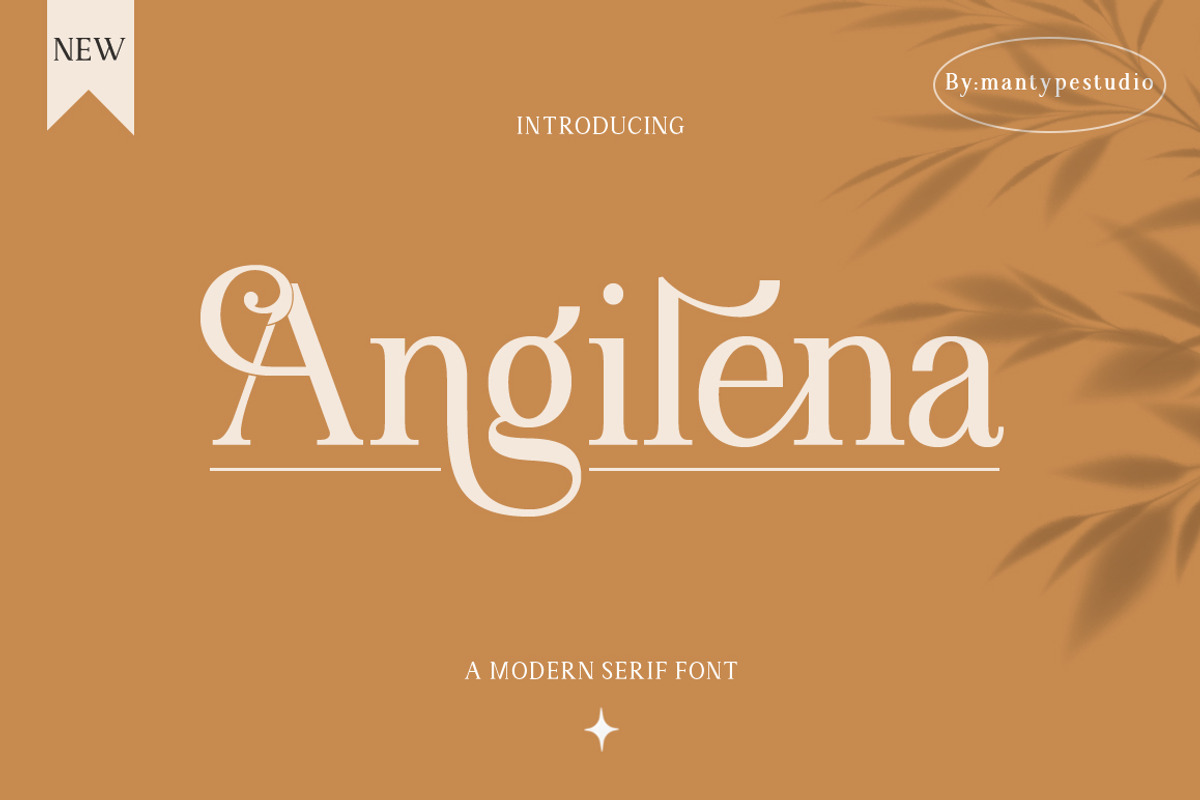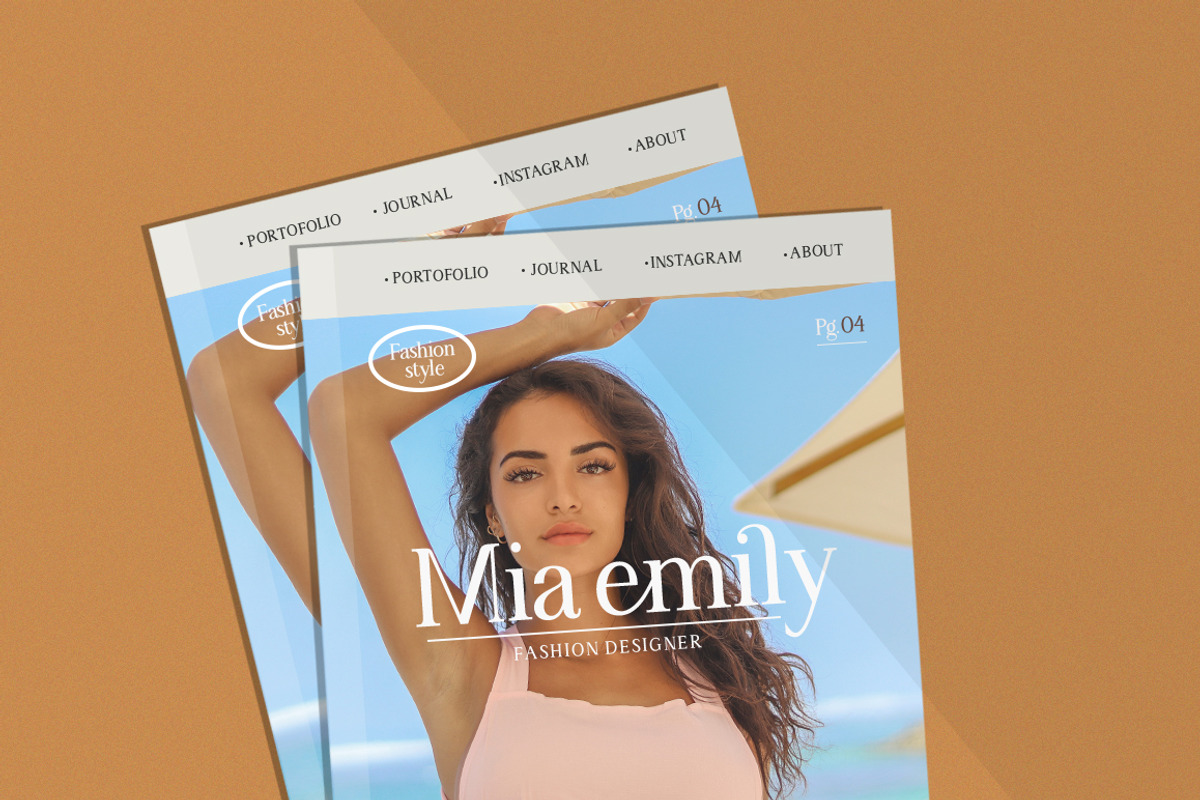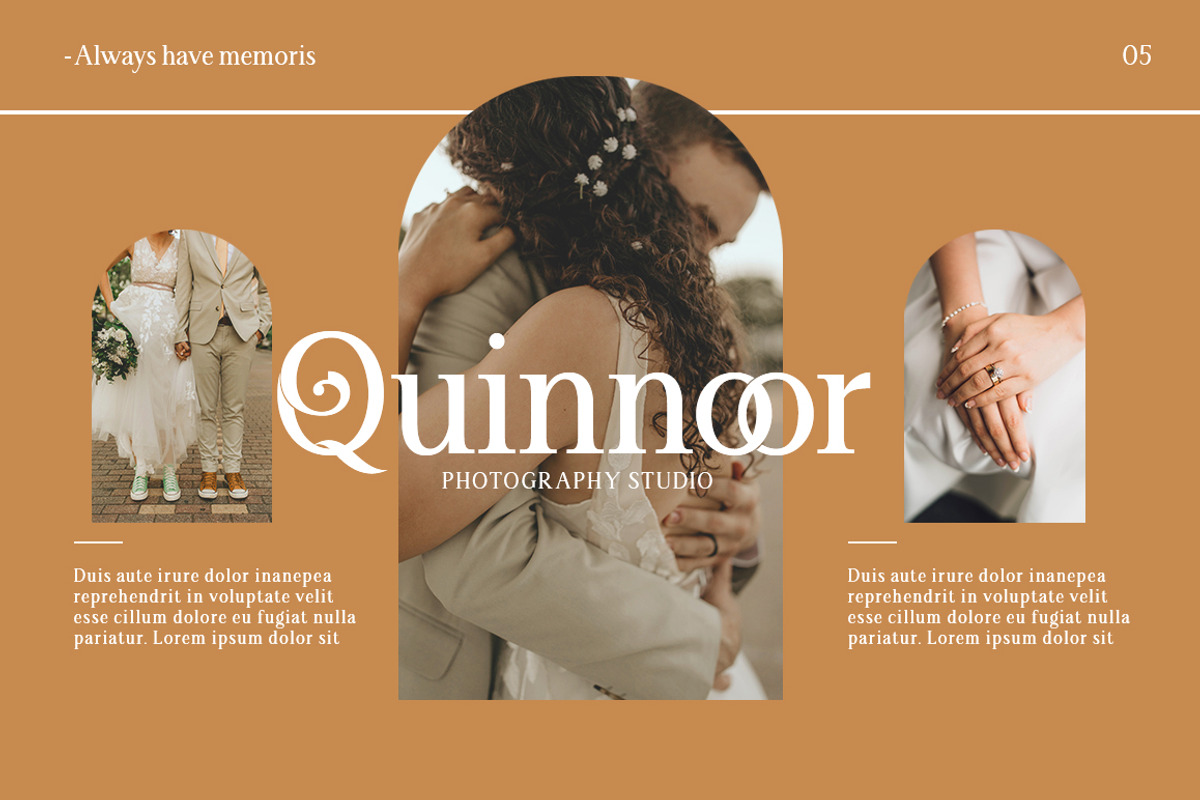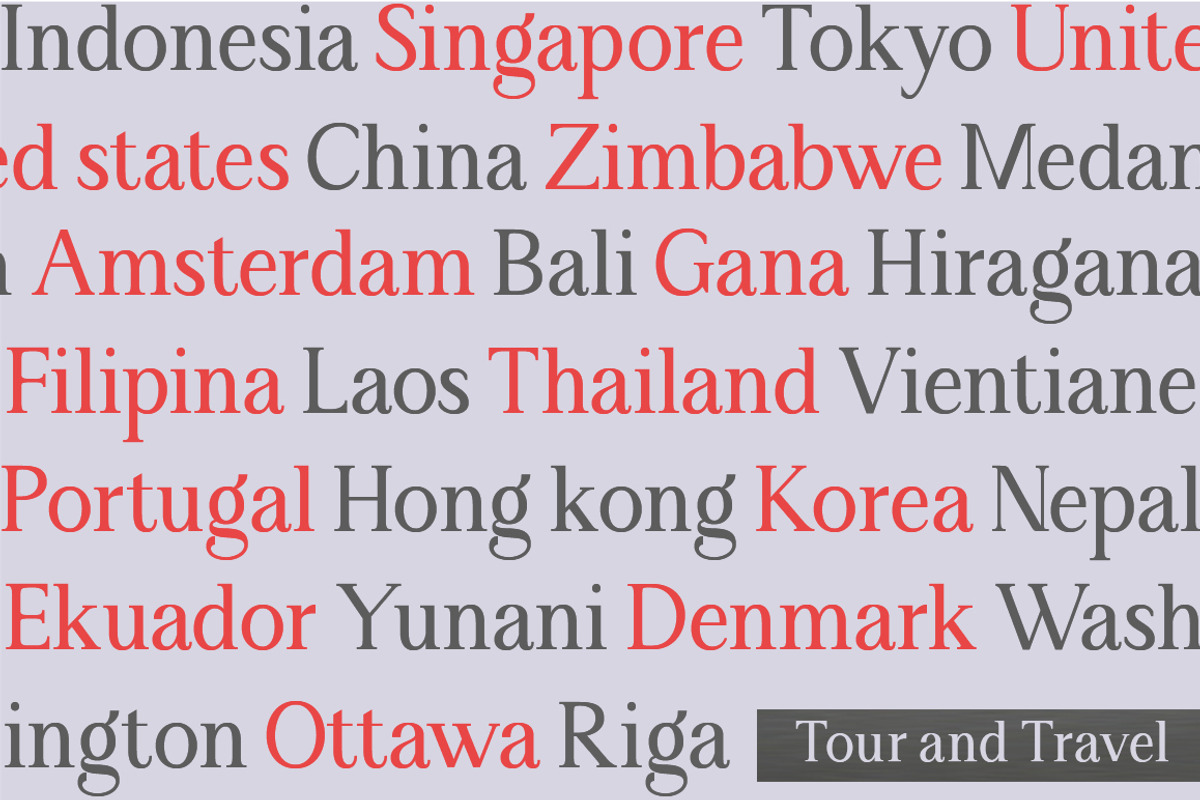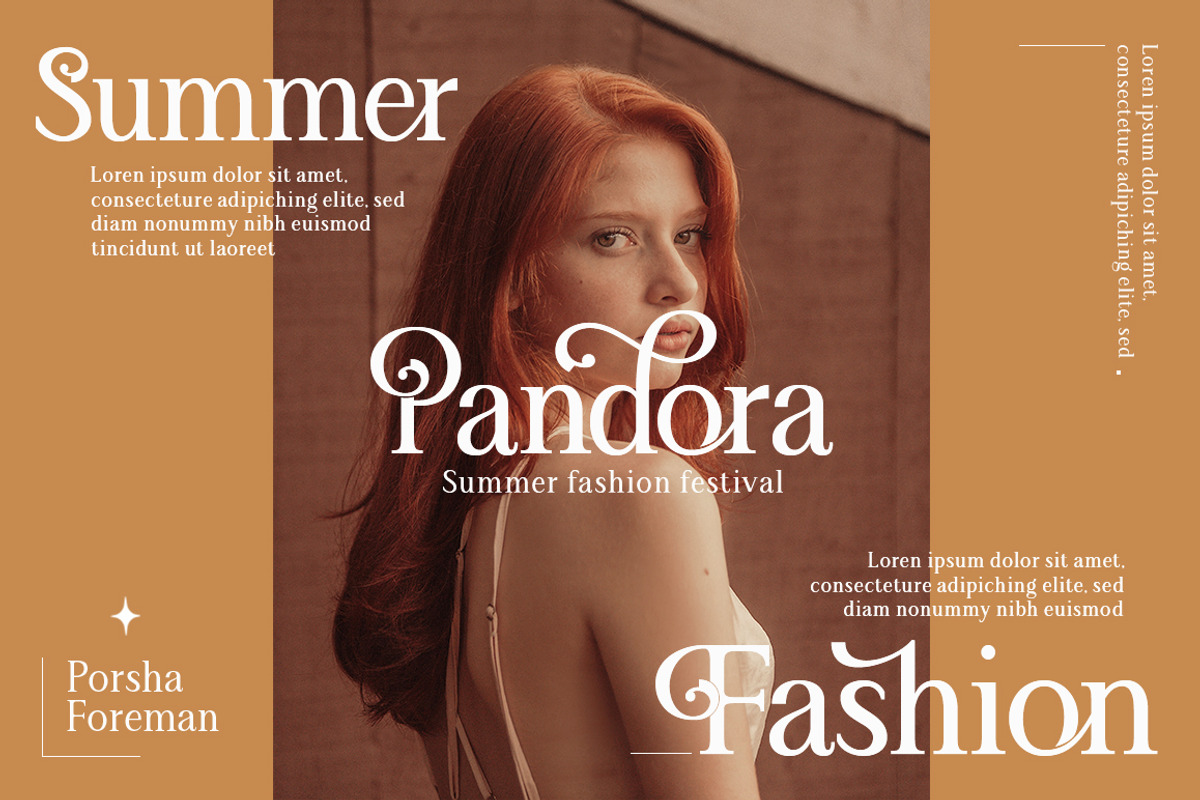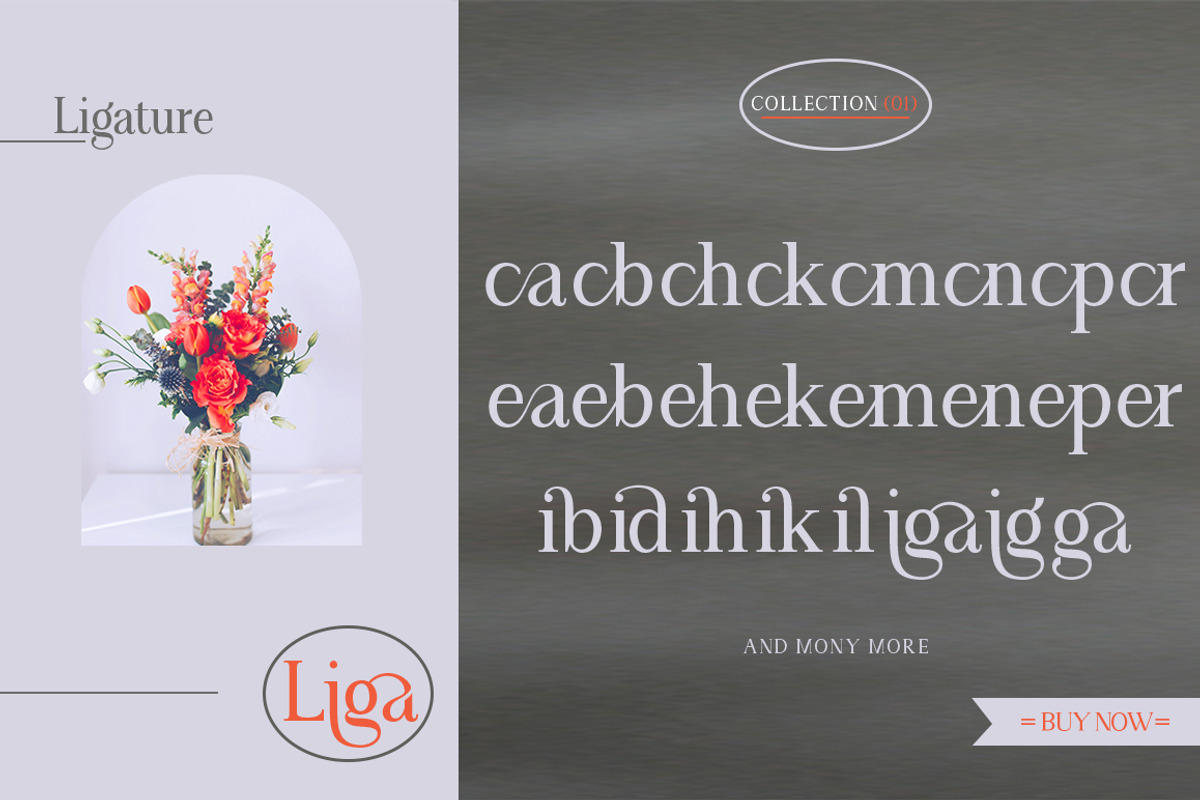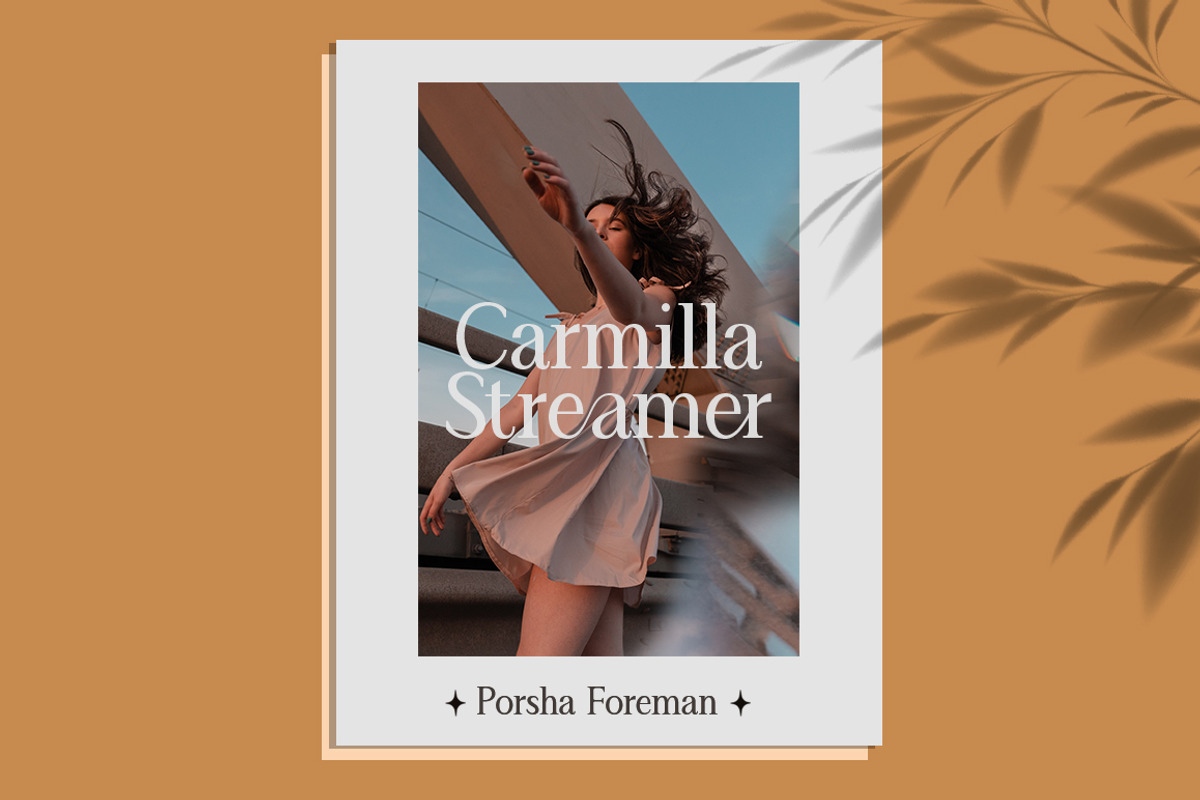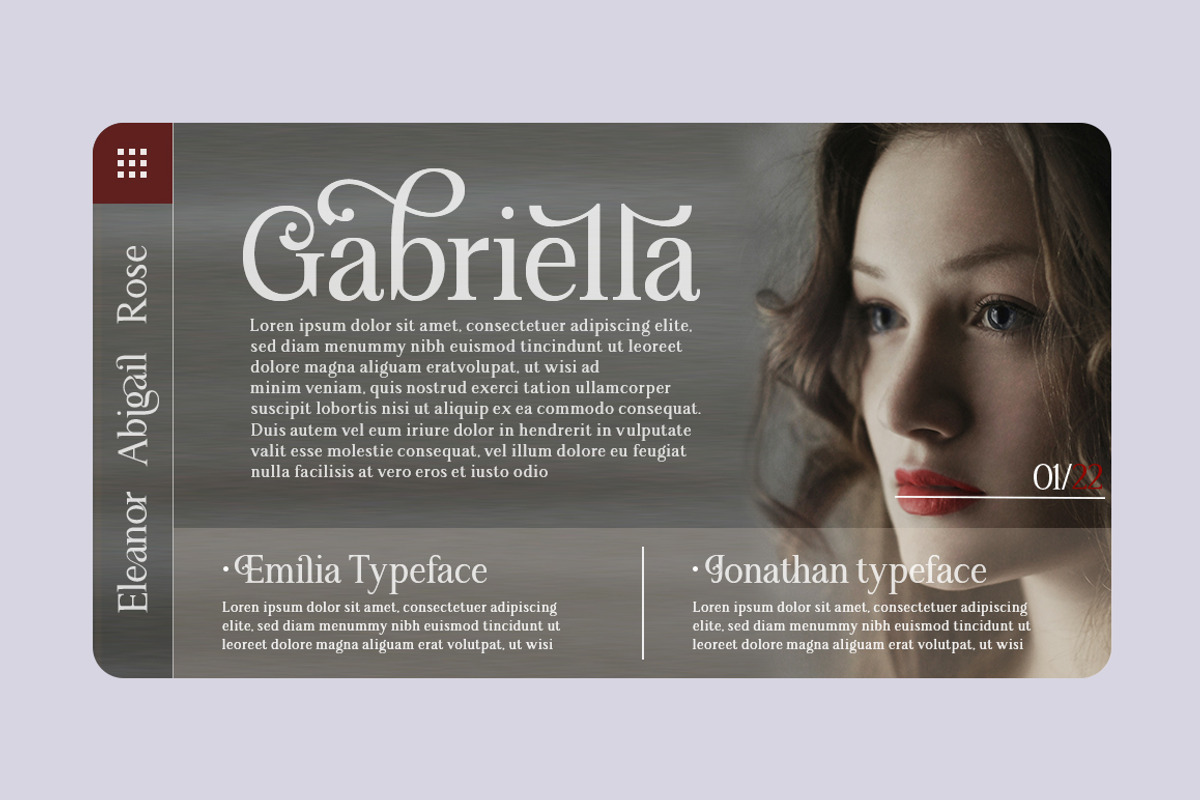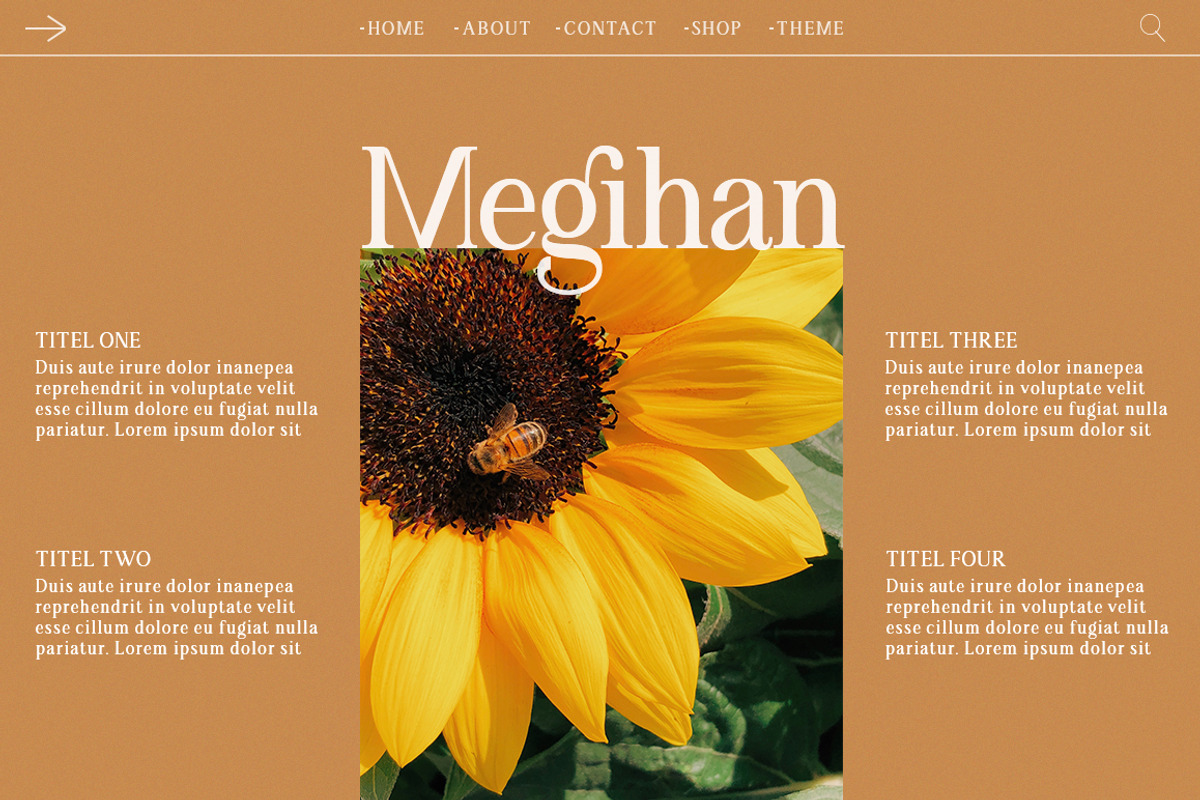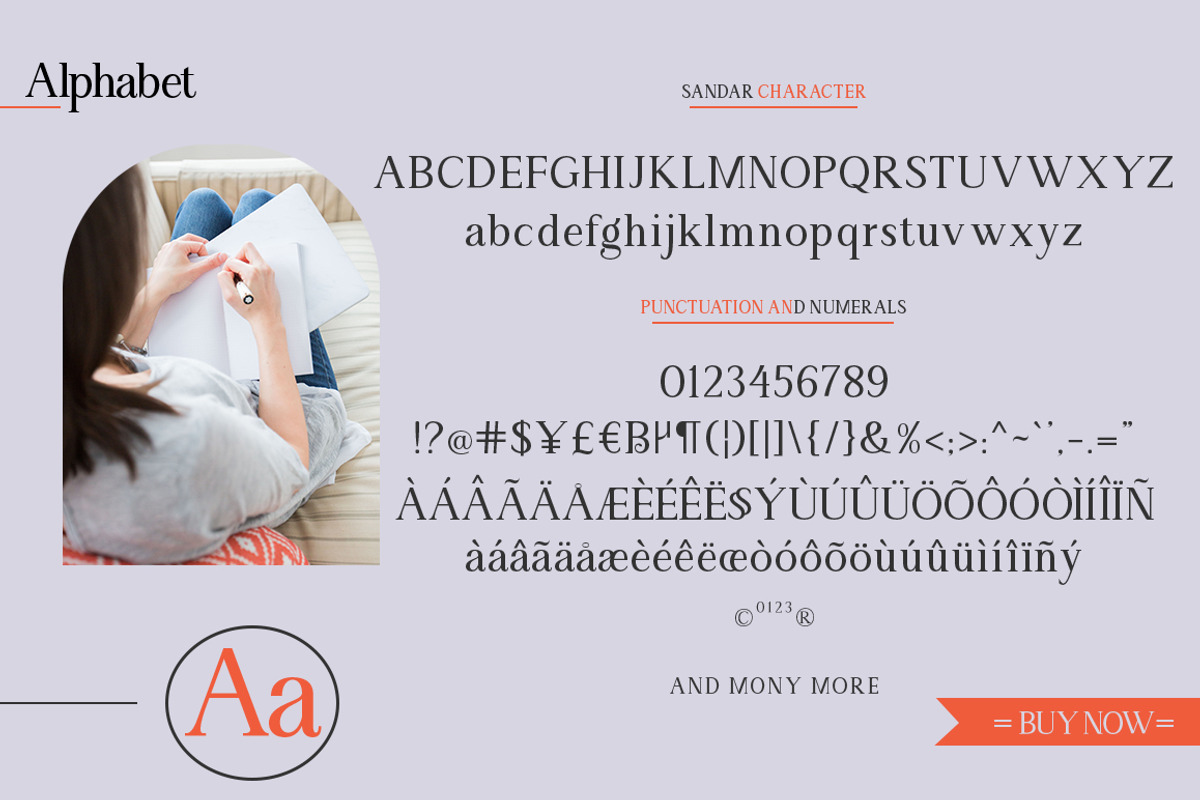
Angilena
Angilena is an elegant, unique font that uses ligatures to smoothly link letters. Perfect for adding a unique twist to word-mark logos, monograms or pull quotes. Angilena has 51 ligatures as well as numbers and punctuation making it super versatile. Ligatures are able to be turned off if needed for body copy.
To make it look more unique, here we prepared some ligatures:ca cb ch ck cm cn cp cr ea eb eh ek em en ep er ib id ih ik il iga ig ga gi mg ng ob oh ok om on op or oo tb th tk tm tn tp tt ti tu ro vo wo yo vi wi yi